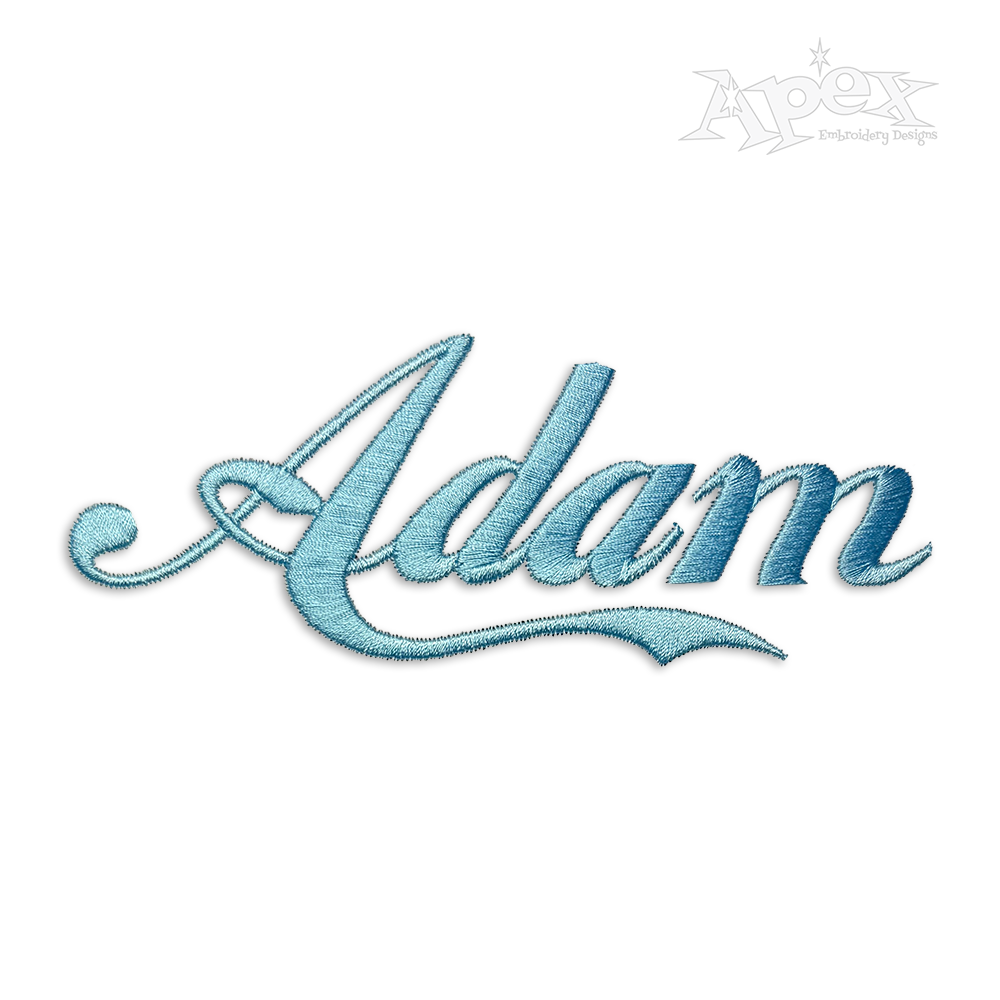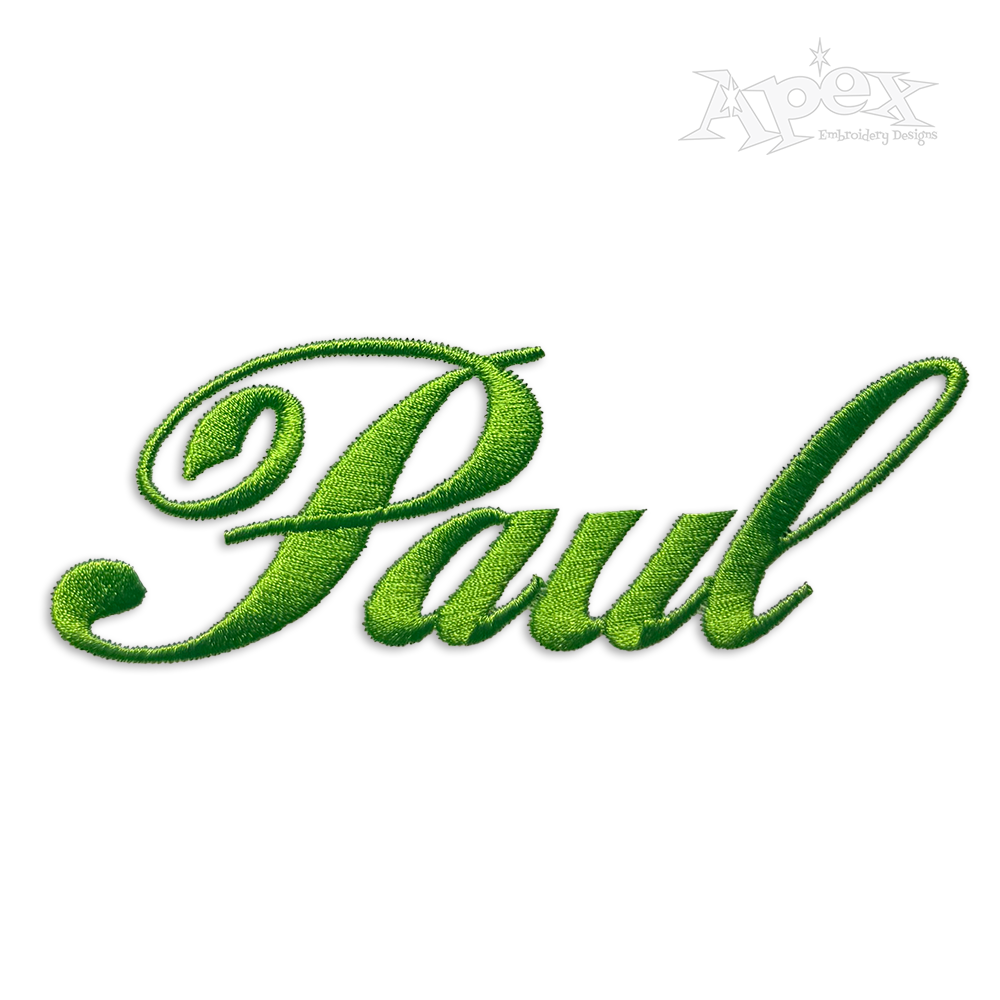
Cola Script Embroidery Font
Brimming with mid-century optimism and the buoyant energy of classic Americana, the Cola Script Embroidery Font captures the golden age of handwritten sign-painting. There is an unmistakable rhythm in its dramatic swoops, looping ascenders, and confident flourishes—reminiscent of roadside diners, soda fountains, and vintage pennants. Digitized from an artisan perspective, every connected stroke glides effortlessly across the fabric, lending personalized gifting and custom monogramming a playful yet polished bespoke charm that stands out with tactile dimension.
Cola Script Embroidery Font Craft & Letterform Details
The true artistry of this satin stitch alphabet lies in its masterful management of stroke modulation. Emulating the pressure of a flexible sign-painter’s brush, the letterforms transition seamlessly from delicate hairline upstrokes into rich, rounded downstrokes. During digitizing, we incorporated tailored underlay architectures that cushion the stitches from within, preventing puckering on flexible textiles while elevating the topstitch to catch the light with rich, liquid sheen. Micro-tuned pull compensation ensures that tiny negative spaces—such as the delicate eyes of lowercase 'e's and loops of 'l's—remain open, crisp, and beautifully legible across every single stitch out.